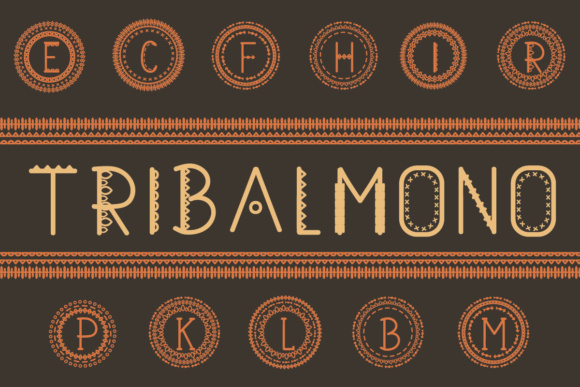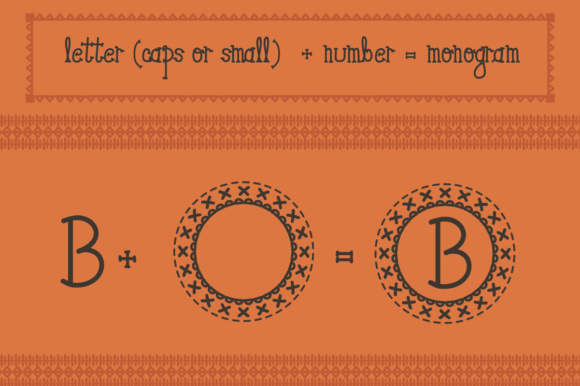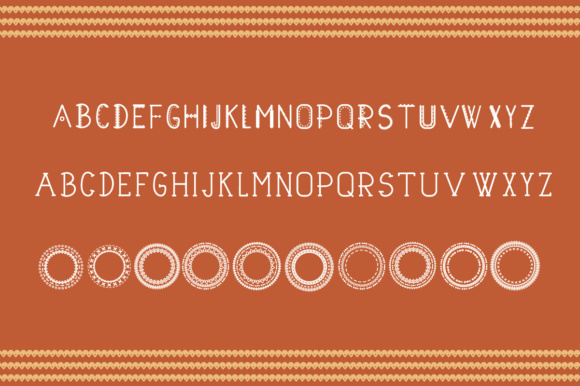
Tribalmono Font
About Tribalmono Font
Tribalmono is a fun tribal monogram font.
Simply type a letter (lowercase or uppercase), add a number straight away after (e.g. A1 or b2) and you will automatically get a tribal styled monogram frame.